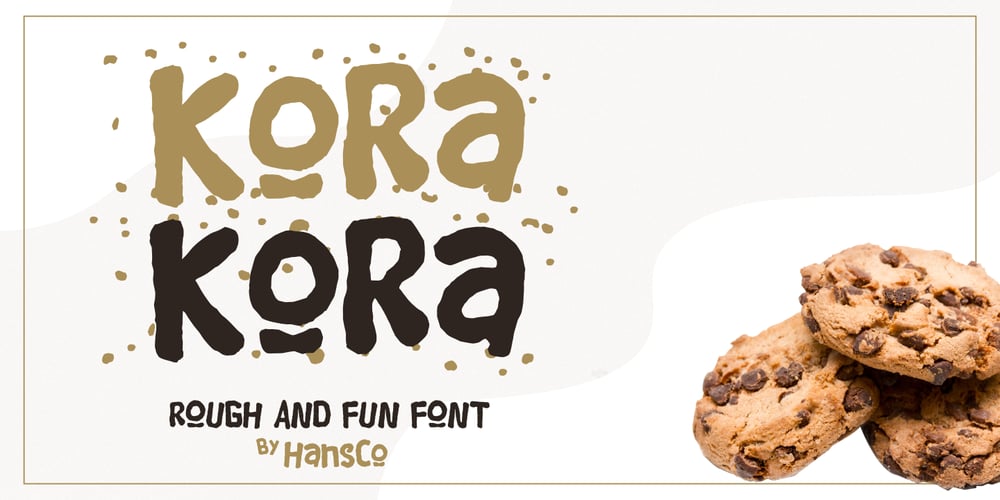
Kora Kora Font Family was designed by Burhan Afif and published by HansCo. Kora Kora contains 1 styles and family package options. Kora Kora is a display kind of sans serif font with a rough texture on the edges and fun look. This font is perfect for use for logos, print templates, packaging in food industries such as bread, and many other projects. Several alternative crumbs are available in this font. Highly recommended to use it in OpenType capable software – there are plenty out there nowadays as technology catches up with design. The OpenType features can be accessed by using programs such as Adobe Illustrator, Adobe InDesign, Adobe Photoshop Corel Draw X version, Afinity and more. Enjoy!